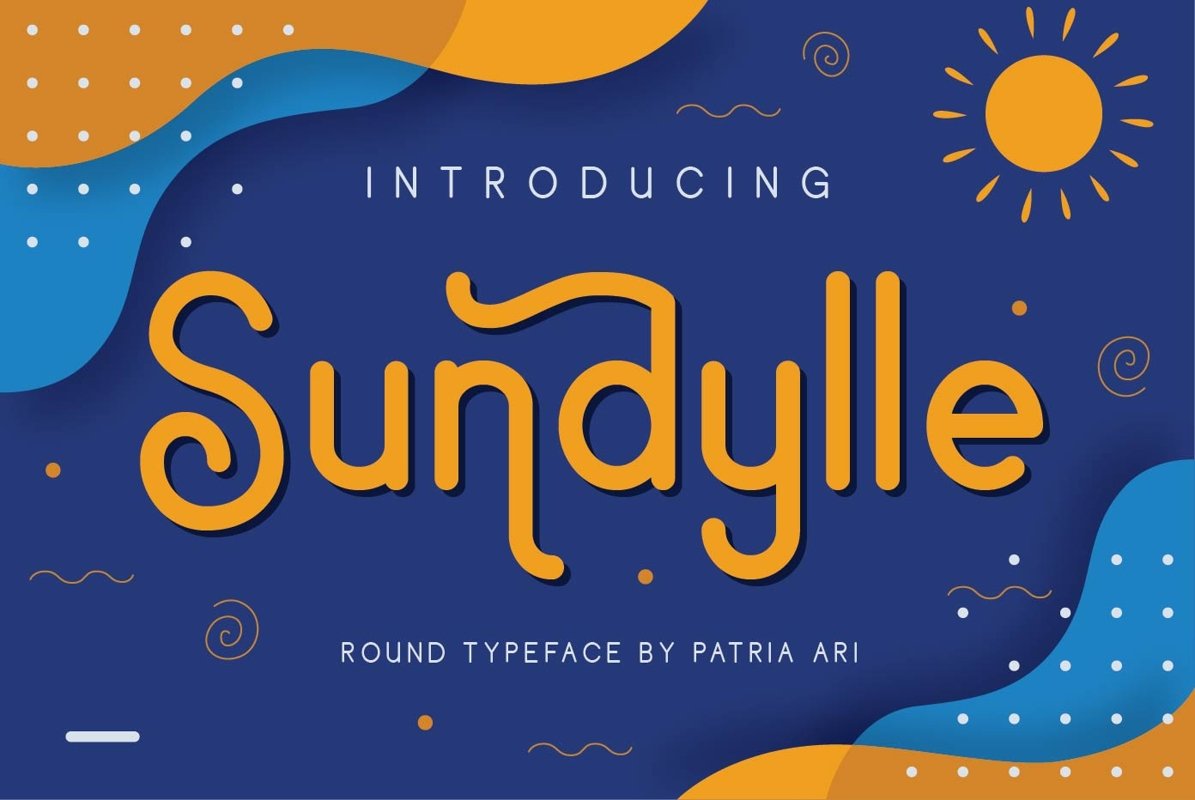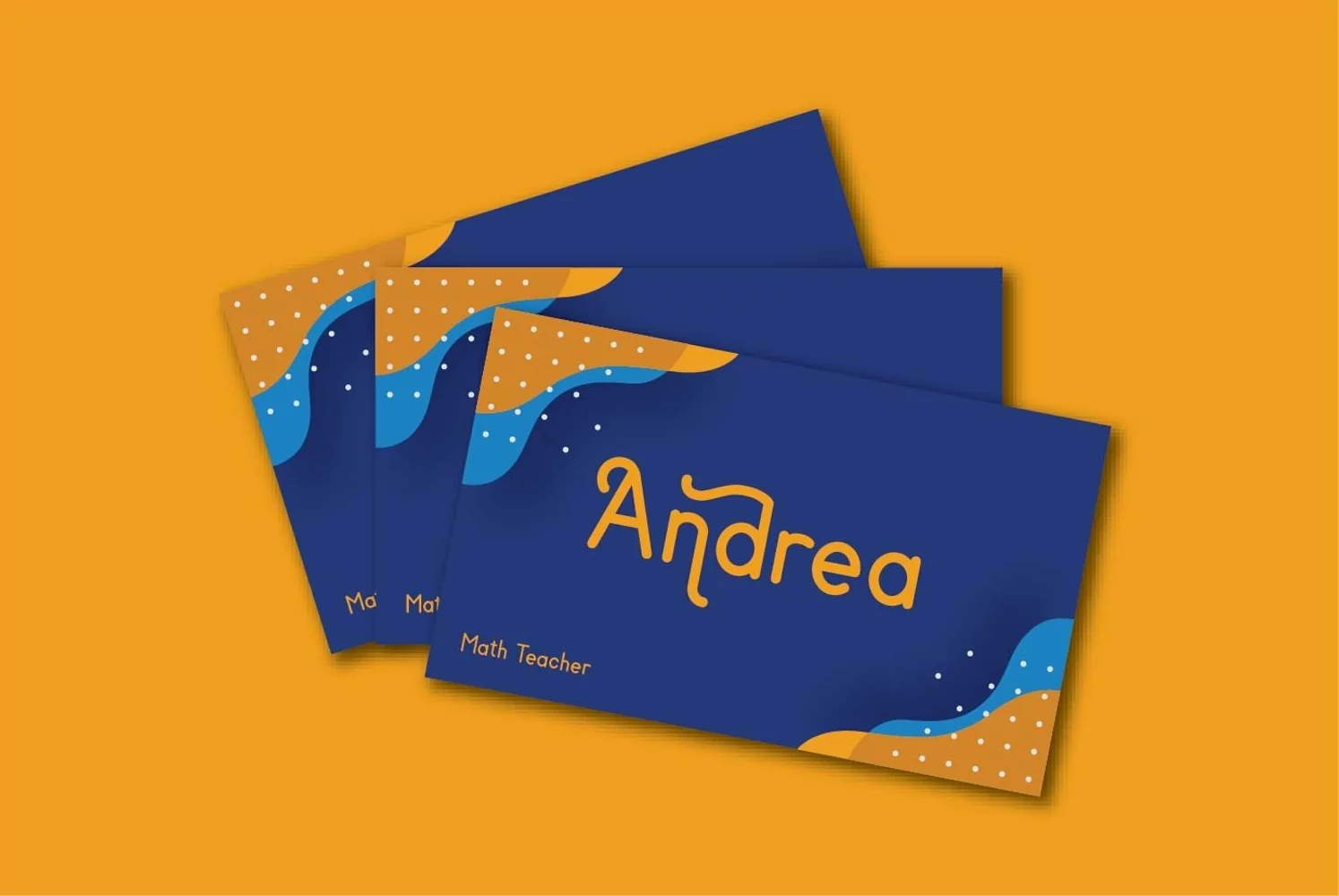
Sundylle is round typeface with clean characters and playful alternates to support your brand/project.
Sundylle is perfect for projects such as logos & branding, headlines, posters, signage, advertisements, printed quotes, product packaging, product designs, label, photography, watermark, special events or anything. In this product you will get: